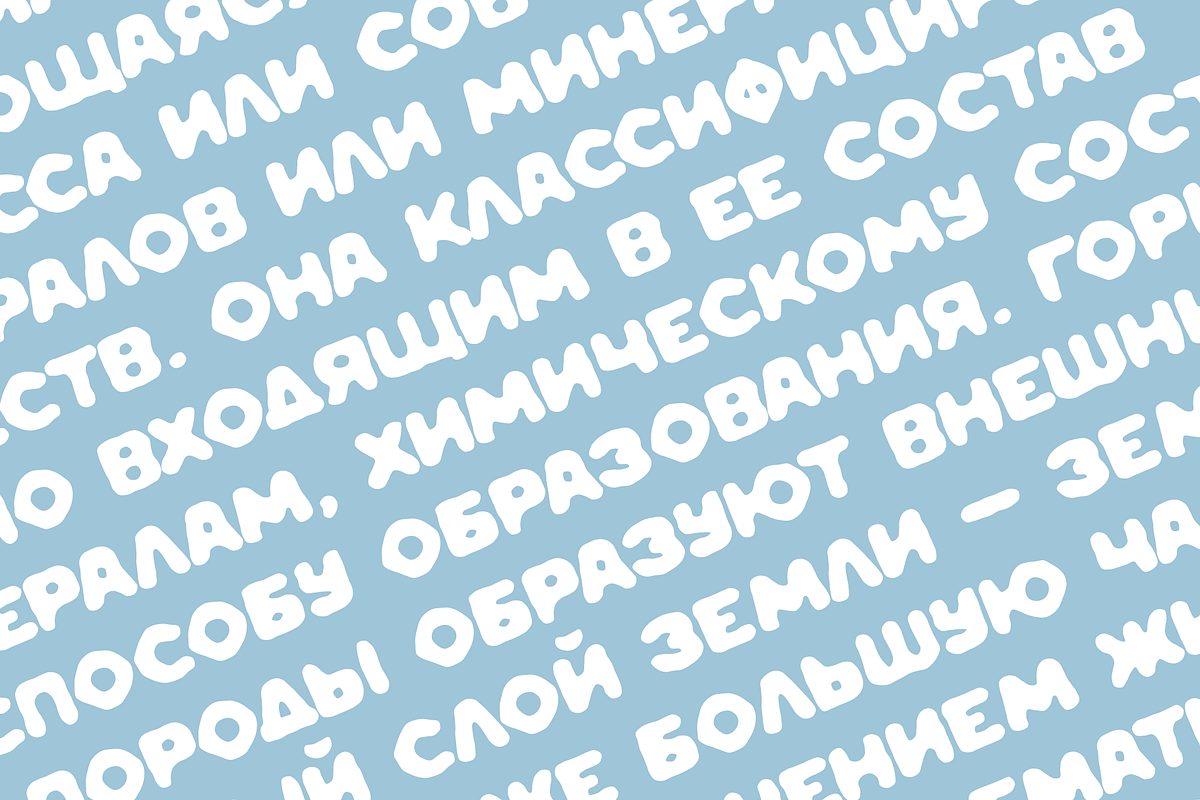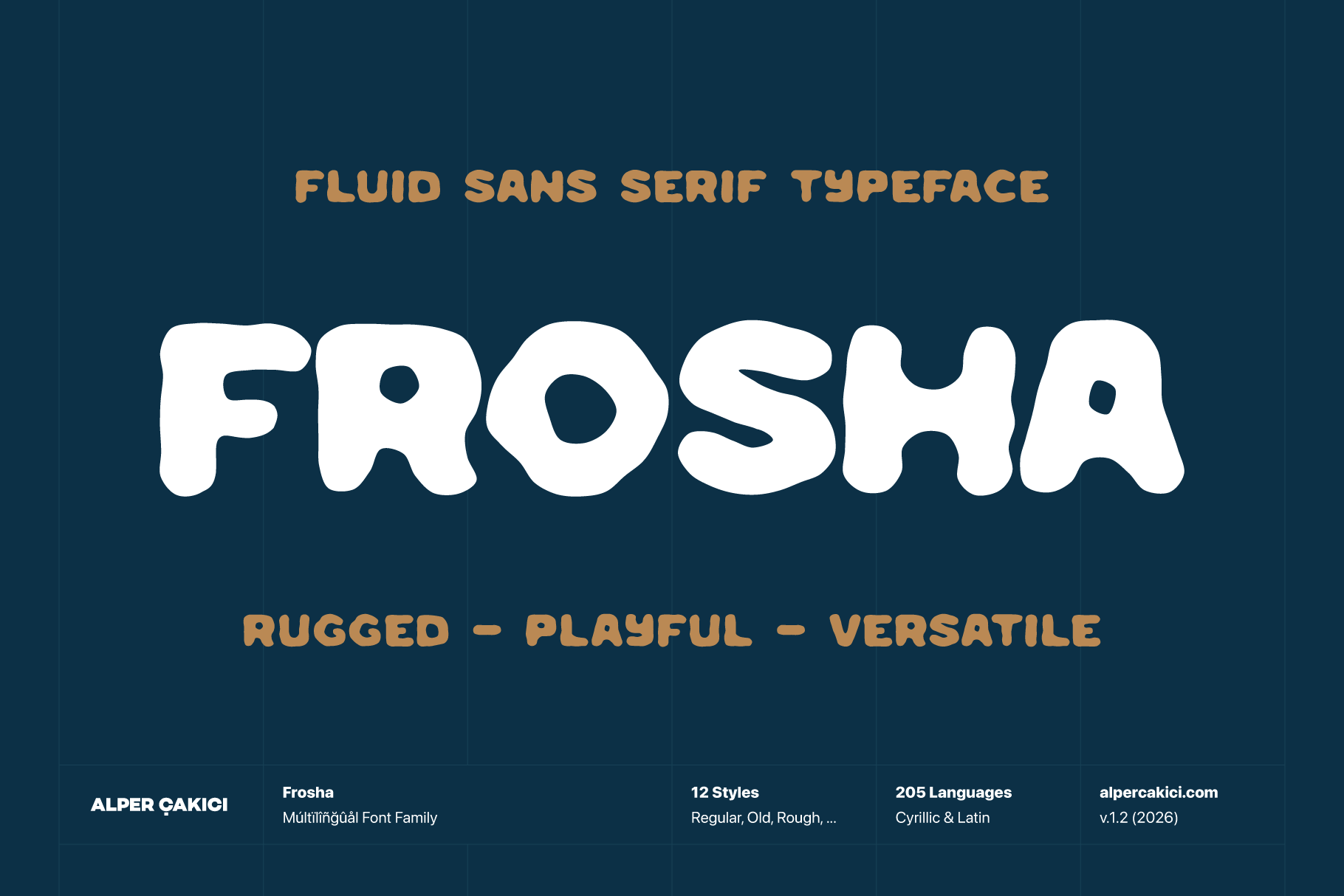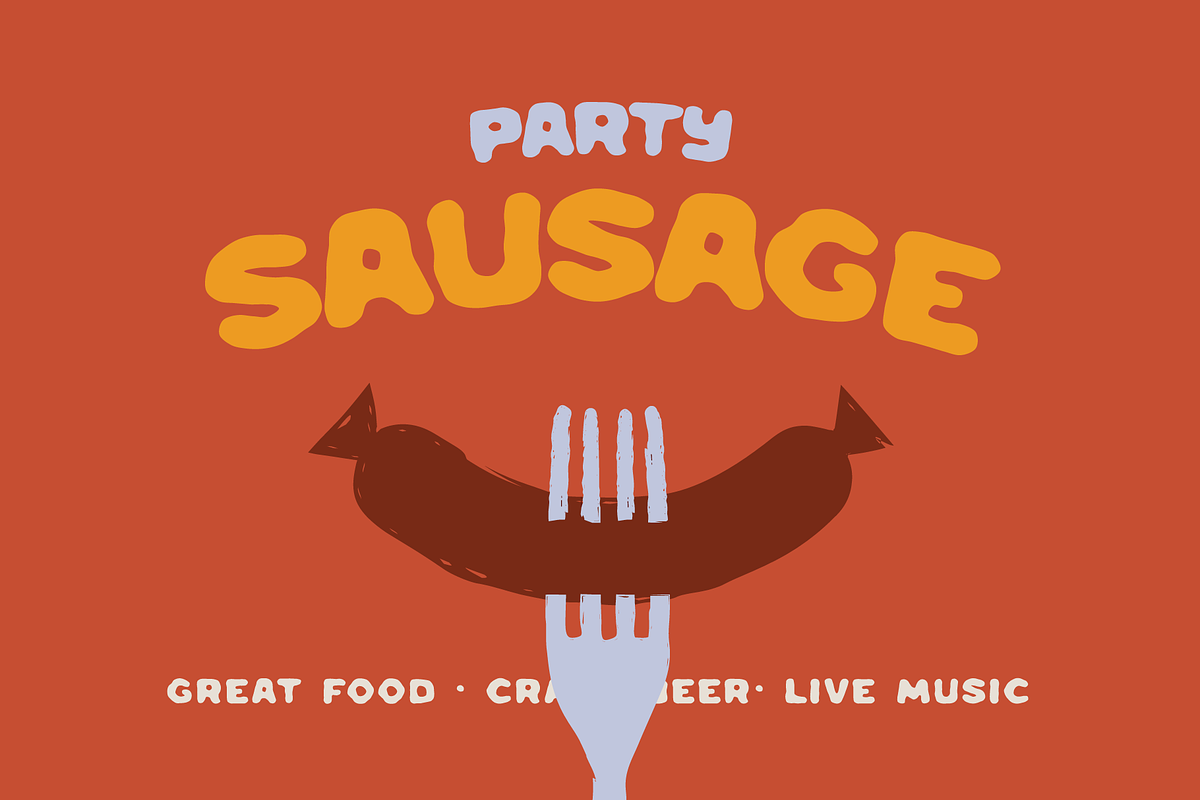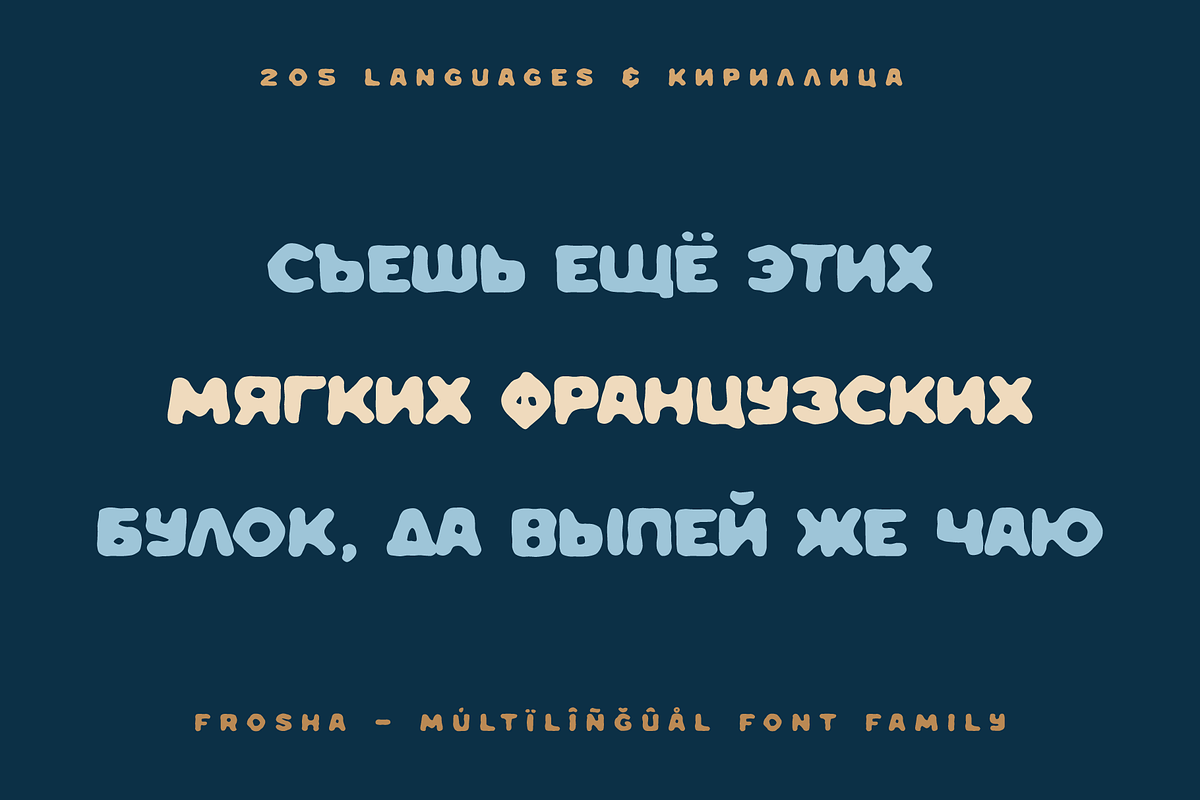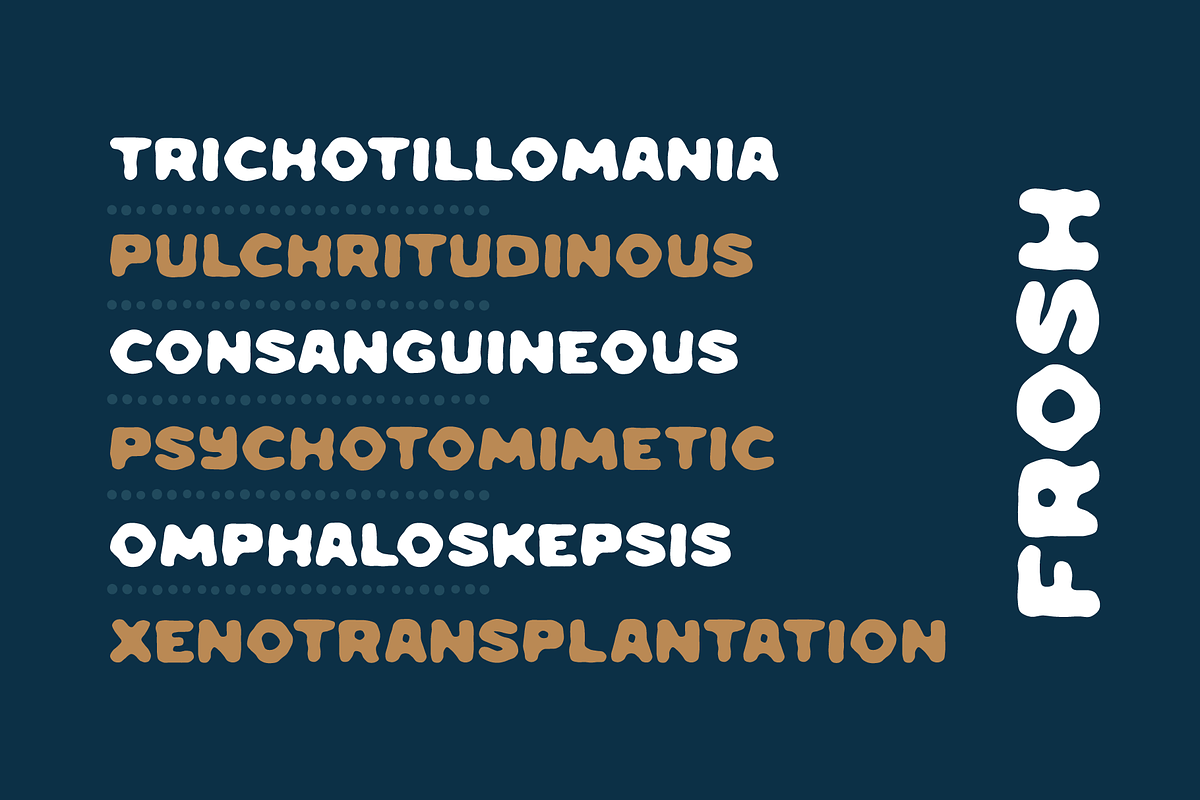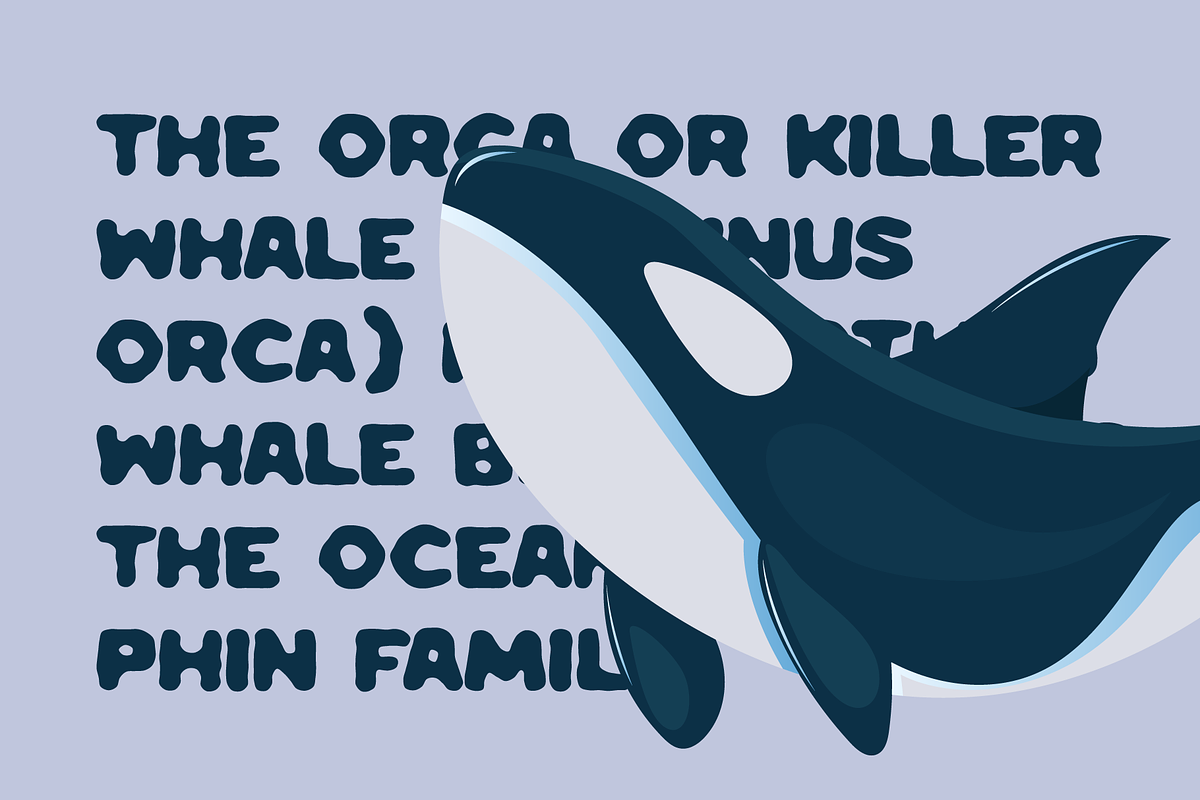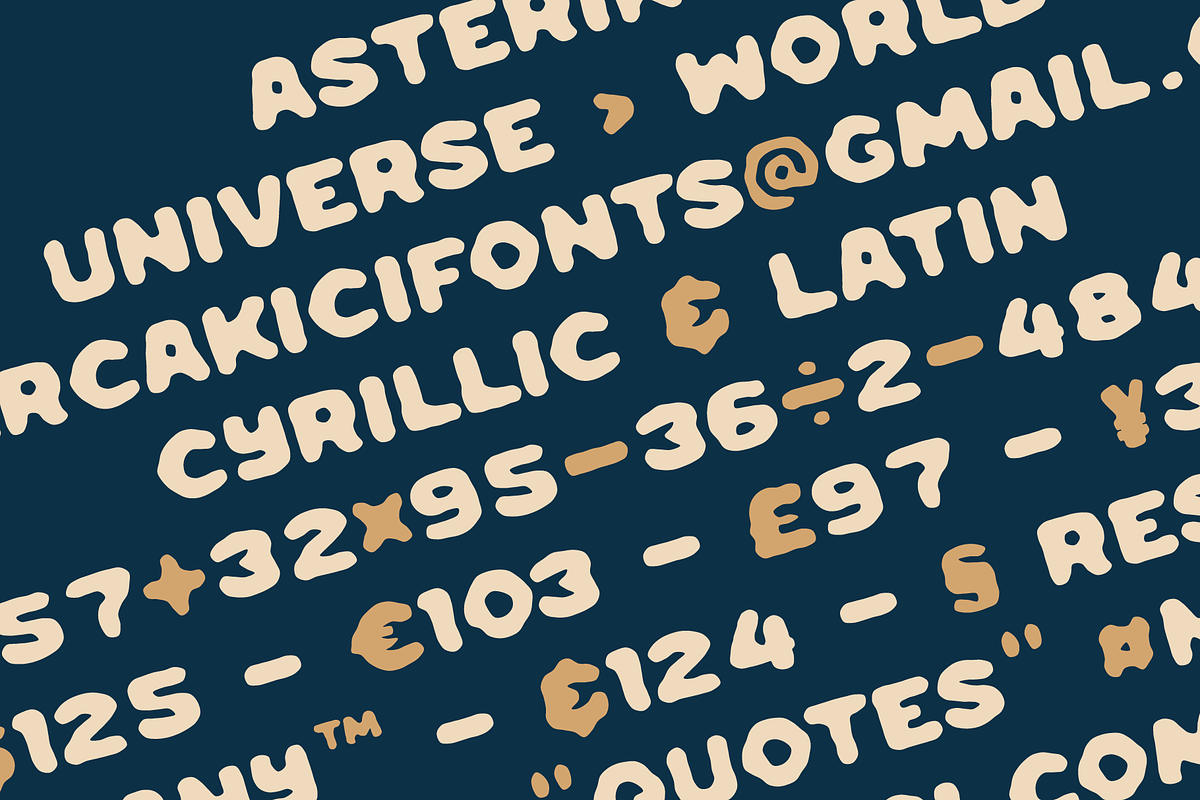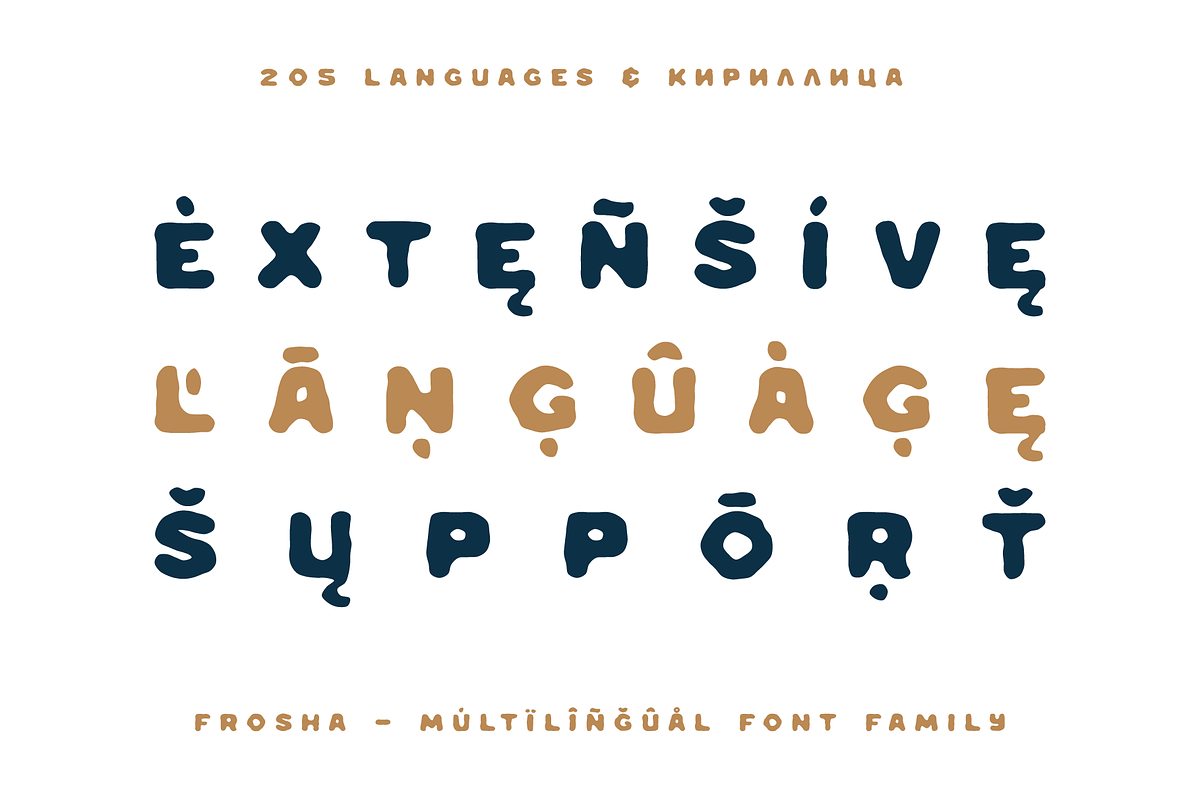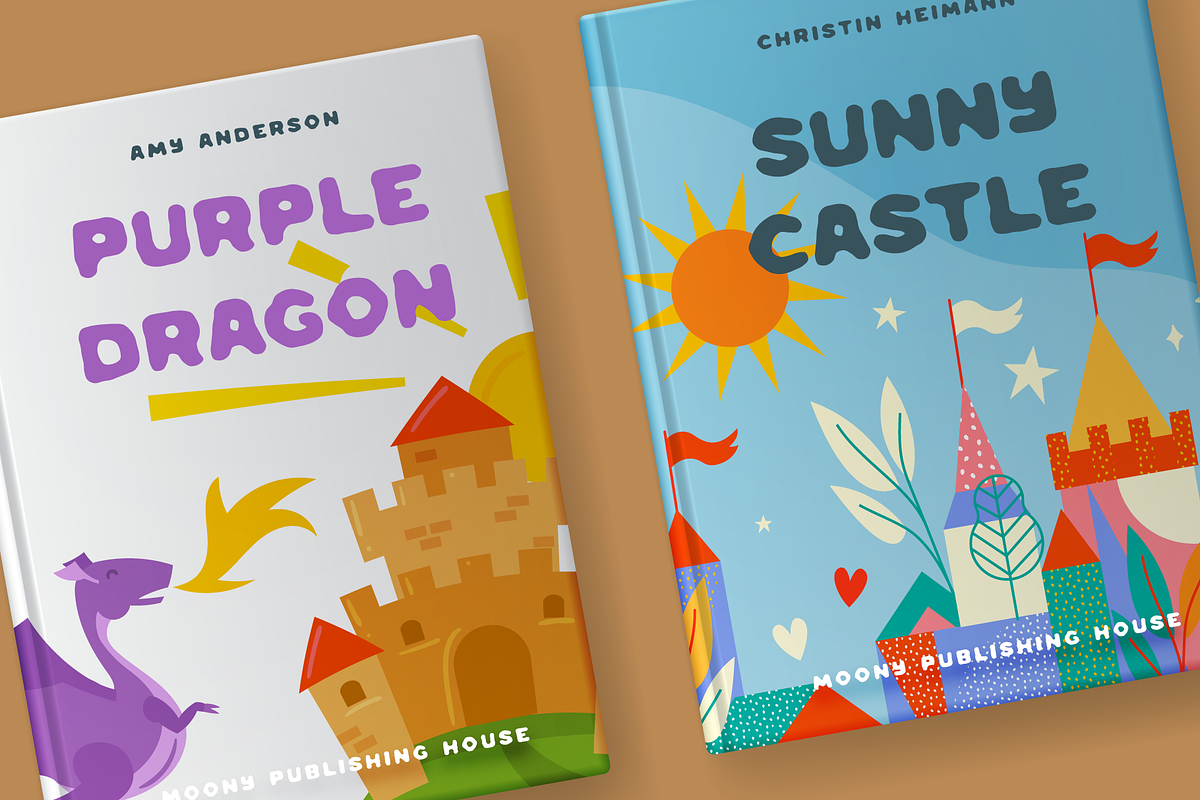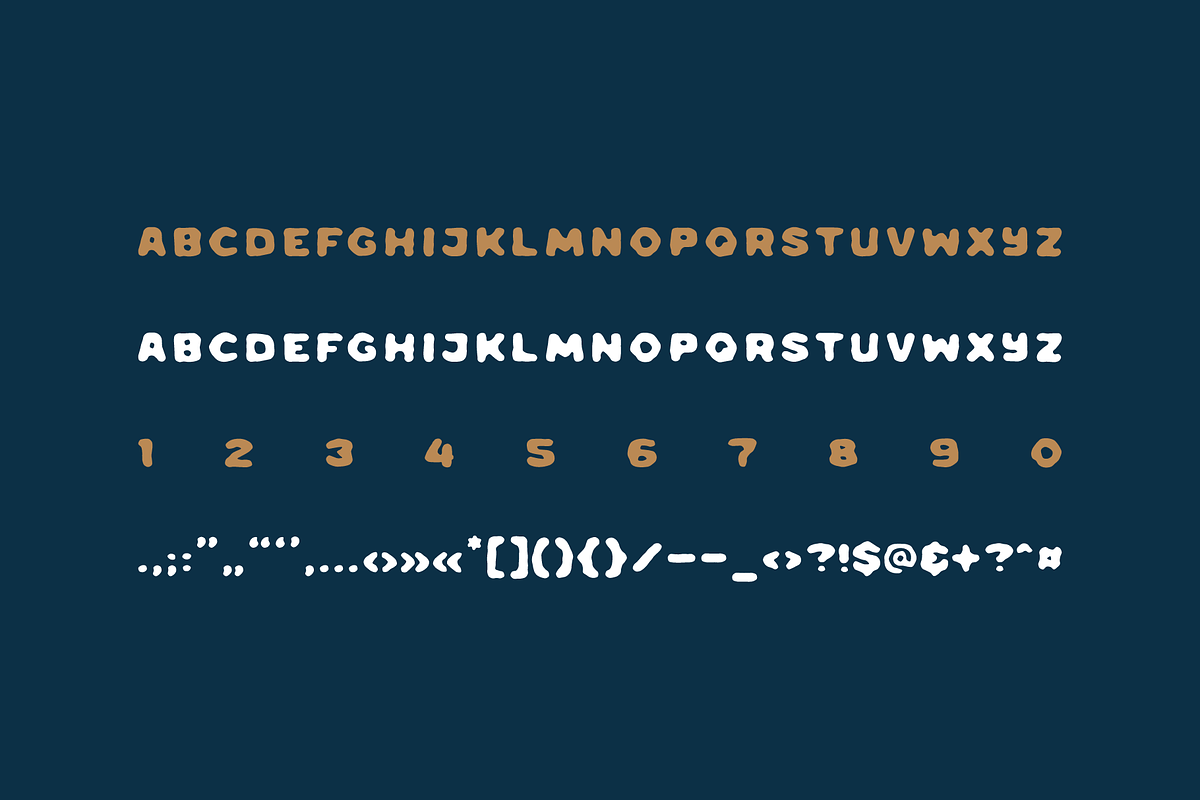
Frosha Fluid Typeface (12 Fonts)
Frosha is a molten-inspired display typeface that blends eroded textures, flowing contours, and bold all-caps construction into a distinctive visual experience. Designed to evoke the appearance of softened metal, melted surfaces, and weathered forms, it balances organic movement with strong typographic presence.
The letterforms feature rounded transitions, irregular edges, and naturally worn details that create a handcrafted character while maintaining clarity at display sizes. Each glyph appears shaped by heat, time, and texture, resulting in a dynamic aesthetic that feels both rugged and fluid. The subtle erosion throughout the design adds depth and personality, making every word appear alive with movement and material expression.
Frosha includes twelve carefully crafted styles, offering a versatile range of visual textures and treatments. From the cleaner Regular and Italic styles to the heavily distressed Rough, Old, and Aged variants, the family provides extensive creative flexibility. The Hazy styles introduce softened details, while the Outline versions deliver striking dimensional effects suitable for layered typography and experimental compositions.
With support for both Latin and Cyrillic writing systems, 508 glyphs, and extensive multilingual coverage, Frosha is suitable for international branding, packaging, posters, album artwork, gaming projects, social media graphics, children's products, creative publishing, and expressive editorial design.
Whether used for bold headlines, imaginative branding, fantasy-inspired projects, handcrafted packaging, or contemporary display work, Frosha delivers a unique combination of molten energy, organic texture, and memorable visual impact.